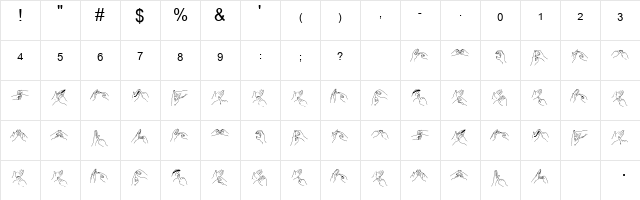
NZSL Regular Free Font
NZSL Regular
Complete NZSL Regular glyph index. Displaying only characters natively supported by NZSL Regular font.
Design Context for NZSL
NZSL is a composed and adaptable typeface that performs quietly and consistently across a wide range of design contexts.